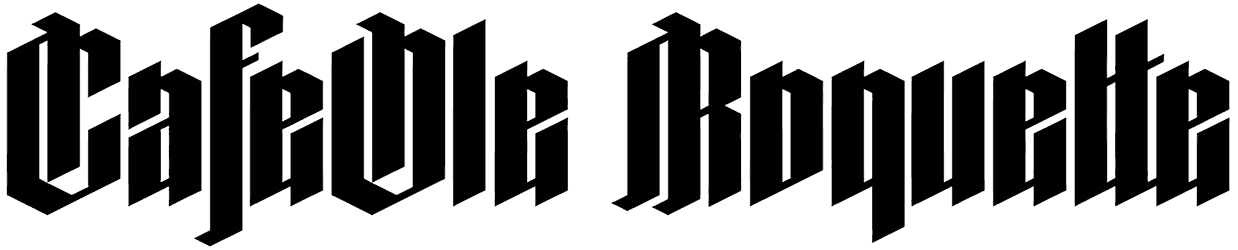
CafeOle Roquette Font
CafeOle Roquette is a tattoo font that can create a feeling like historical and ancient writings in the text. This gangster font is a great choice for people who want to have a unique tattoo or write short phrases in an impressive font. Of course, you should know that words written with CafeOle Roquette may be illegible to someone unfamiliar with the letters and characters